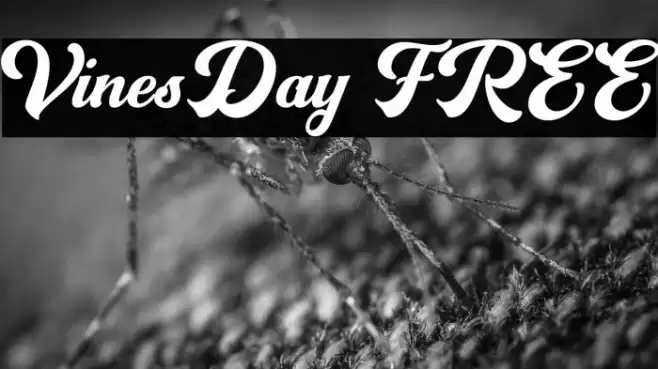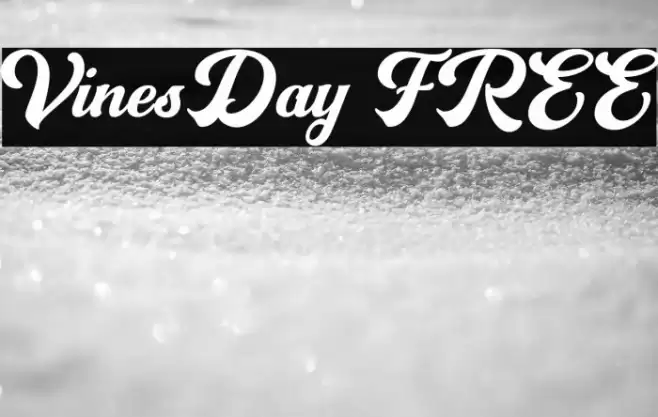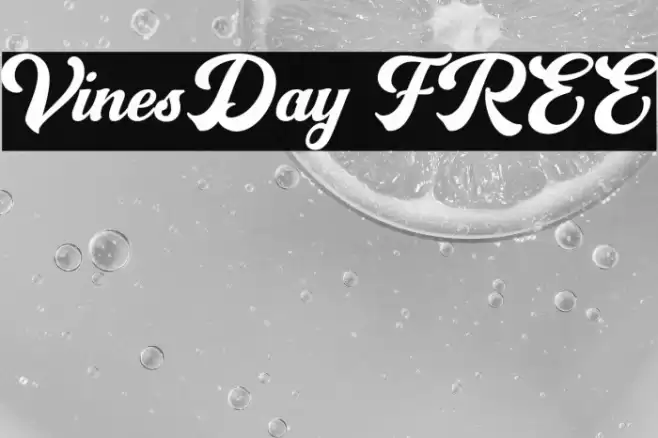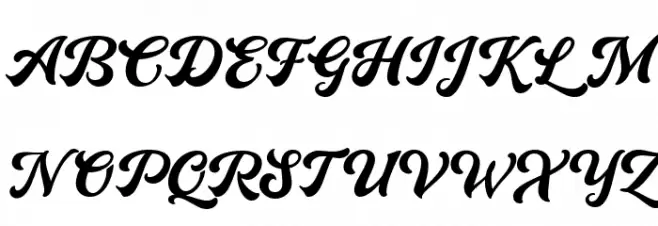
VinesDay FREE Font
VinesDay FREE Description
This font features an elegant, flowing script style with a classic and decorative appearance. The uppercase letters are ornate and sweeping, while the lowercase letters maintain a consistent cursive flow. The characters are slightly slanted, enhancing the script's fluidity and grace. The font exhibits a medium contrast in stroke thickness, providing a balanced and harmonious look. Its decorative nature makes it suitable for formal invitations, greeting cards, and other projects that require a touch of sophistication.
An elegant, flowing script font with a classic and decorative style from Regular fonts.
- Proposed Projects: Ideal for wedding invitations, greeting cards, elegant branding, and decorative headlines.
- Overall Style: Classic, Decorative
- Use Case: Headlines, Invitations, Greeting Cards